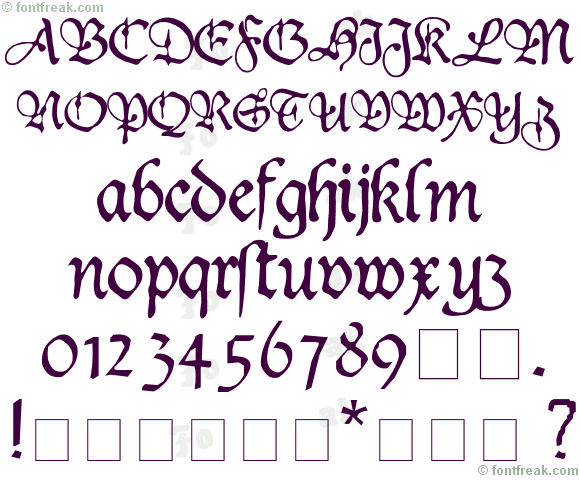
Dukeplus
Dukeplus is a striking decorative font designed by Anke Arnold, falling into the category of display typefaces. This font showcases a unique blend of elegance and artistic flair, making it a captivating choice for various design projects. Its visual characteristics include a moderate stroke weight that balances both boldness and refinement, with subtle contrasts that enhance its decorative nature. The spacing is thoughtfully designed, allowing for clear readability while maintaining an artistic touch, making it suitable for both headings and body text.
This font excels in several specific use cases. It is an excellent choice for wedding invitations, where its artistic flair can add a romantic touch. Dukeplus also shines on movie posters, where its distinctive style can capture attention and convey a sense of drama. Restaurant menus can benefit from its unique aesthetic, helping to create an inviting atmosphere that complements diverse culinary offerings. Additionally, it is a great fit for branding projects, allowing small business owners to establish a memorable visual identity that stands out in a crowded marketplace.
Target audiences for the Dukeplus font include graphic designers seeking to elevate their projects with a unique typeface, small business owners who want to enhance their branding, and content creators looking for a distinctive style to engage their audiences. The versatility of Dukeplus makes it an appealing option for anyone in need of a standout font.
In conclusion, Dukeplus font free download offers a unique combination of elegance and artistry, setting it apart from conventional fonts. Its distinctive style and versatility make it a valuable asset for various design applications, ensuring that your projects will leave a lasting impression. Whether you’re crafting an invitation or enhancing a brand, Dukeplus can elevate your work to new heights.